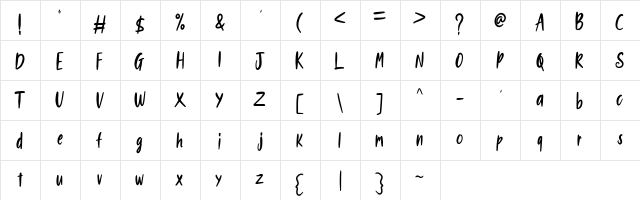
New Bartons Regular
| Designer | Indotitas |
Design Context for New Bartons Typeface
New Bartons is a composed and adaptable typeface that performs quietly and consistently across a wide range of design contexts.